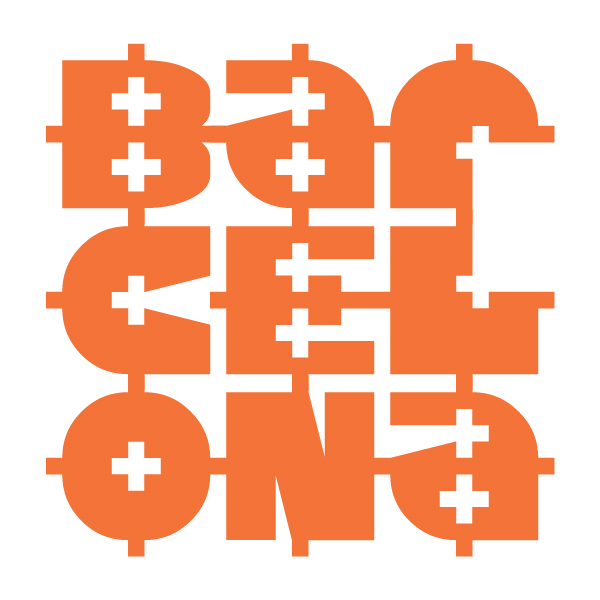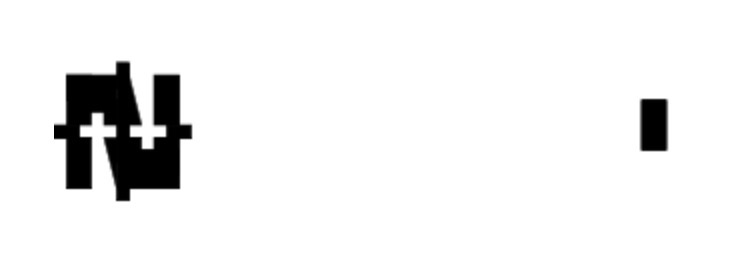
The top pick missile is locking its next target... this font! 10/10 + fav
Another inovatively wonderful design.
Brilliant work. A display font based on a simple idea. The letters are mono spaced to allow them to be arranged in a grid/array fashion (see demo picture). The oversized ink traps take the shape of + signs - a dominant feature of the font. I don't see any reason, why the "N" could not have those ink traps, like the "S" or "Z". Playful, inspiring. 10/10
Great font and sample!
@Frodo7: thanks, you're absolutely right on N, I'll correct it straight away.
Congratulations on the TP, this is an eye catching design.
letter N has some stray pixels
Thanks, @NewCurvenBig, I changed that.